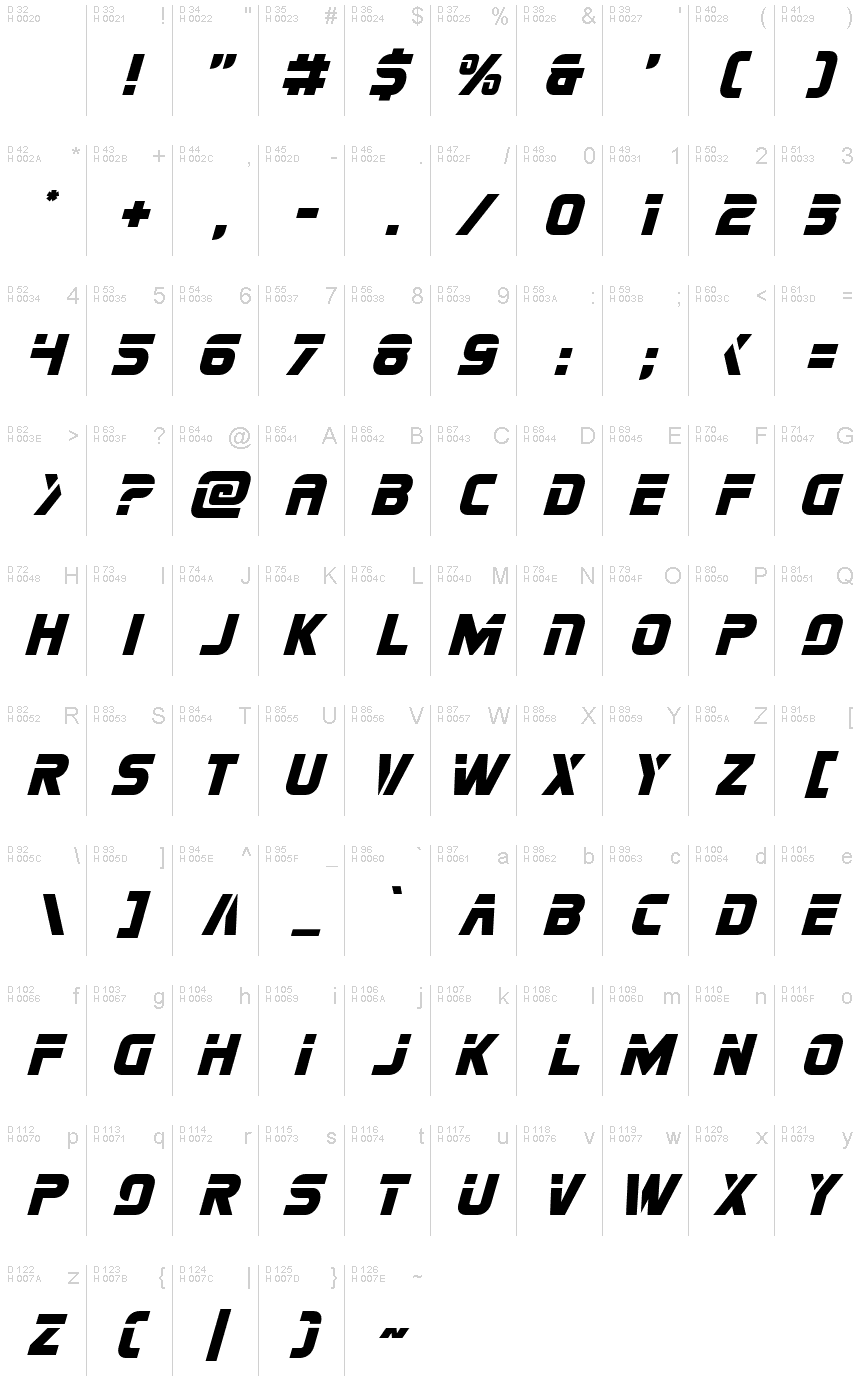
Mission: Danger Title Italic
The Mission: Danger Title Italic is a bold and futuristic display font that demands attention. Designed by Iconian Fonts, this typeface is perfect for projects that require a strong and dynamic look. Its unique style allows it to stand out in any design, making it suitable for creating eye-catching titles or headlines for posters, book covers, and branding materials. The semi-bold width of the font adds another layer of depth to the already striking design. Whether you're designing something for a sci-fi movie or promoting an edgy fashion brand, Mission: Danger Title Italic is the perfect choice to make your project stand out from the crowd.